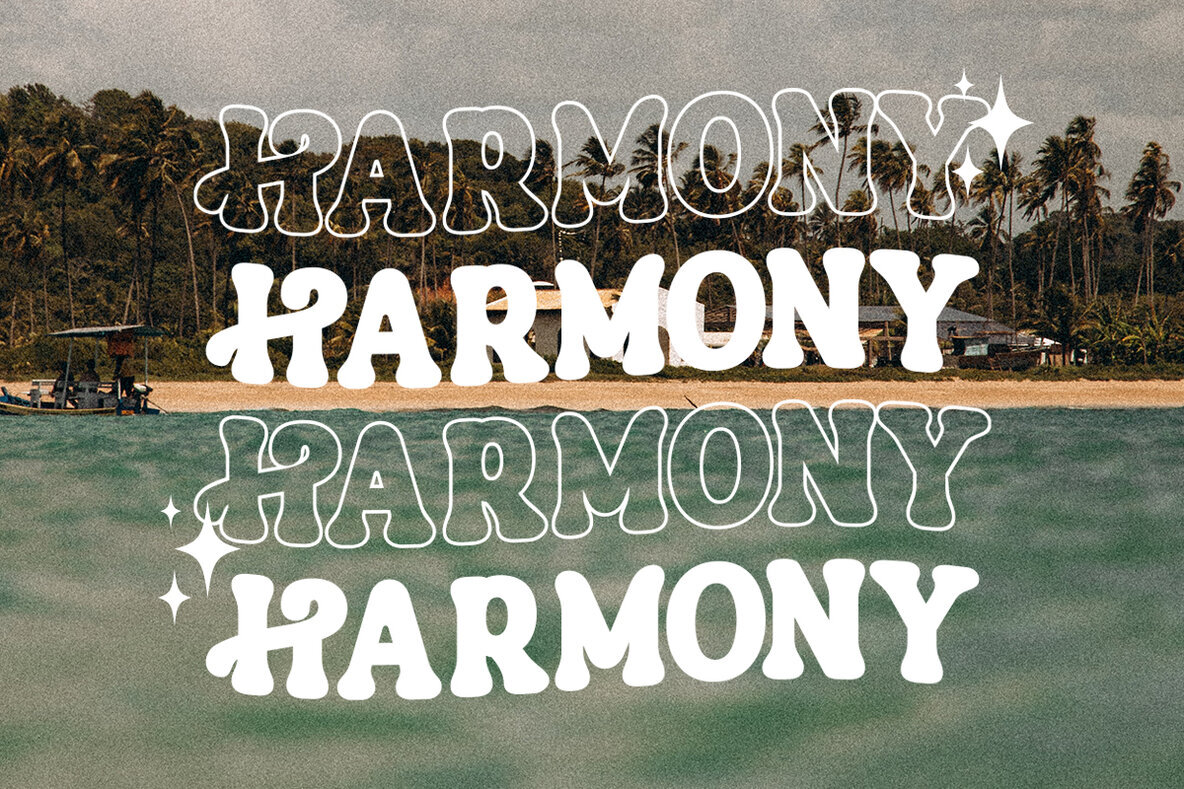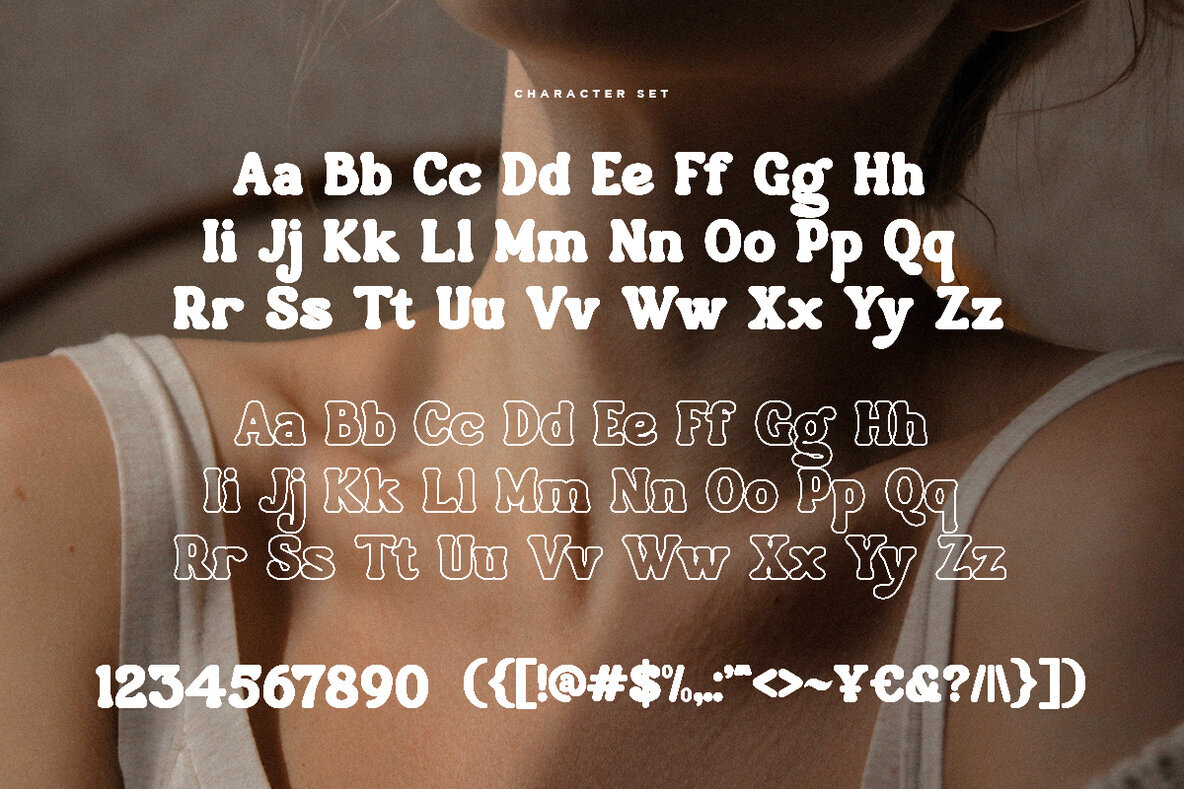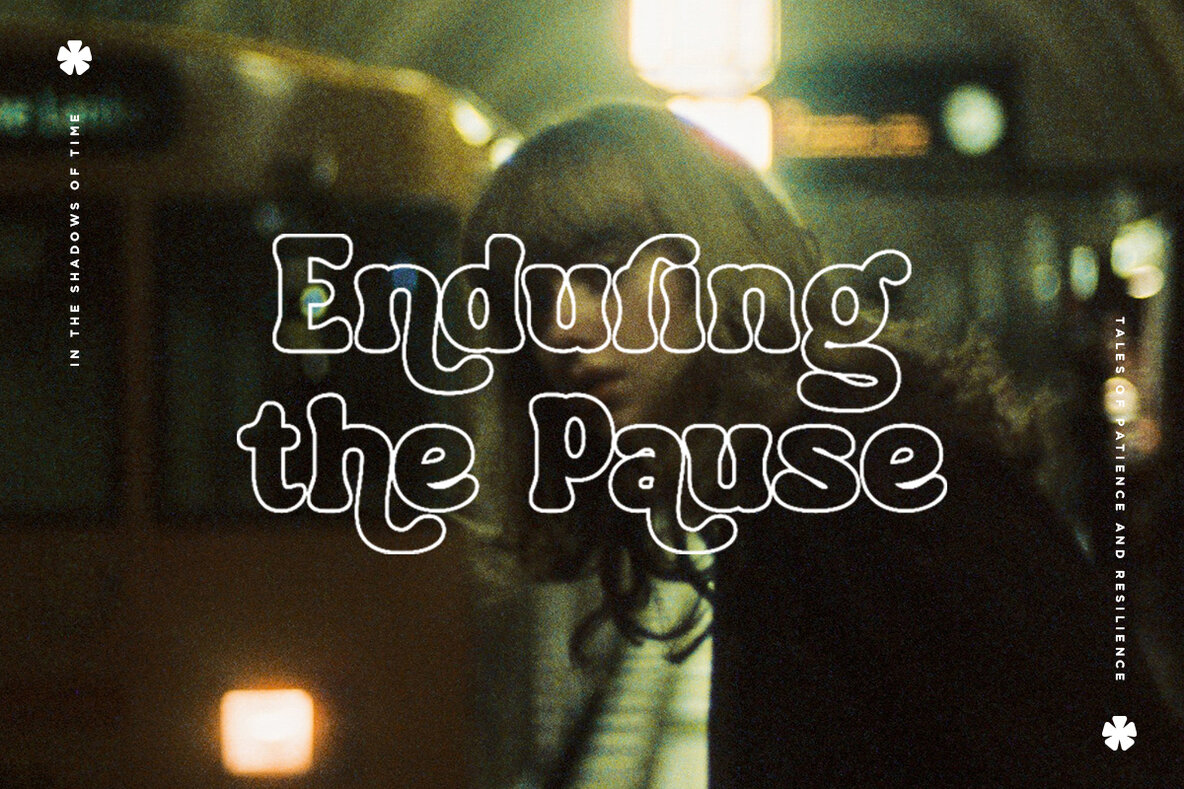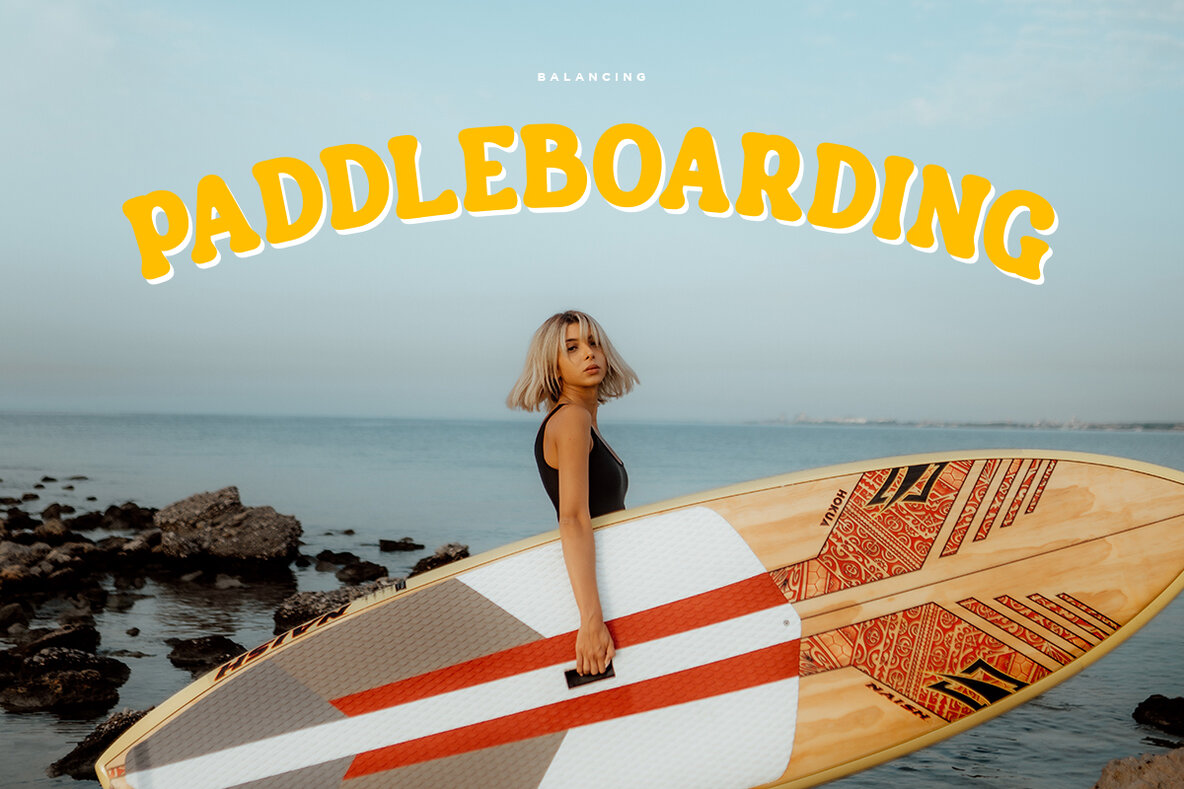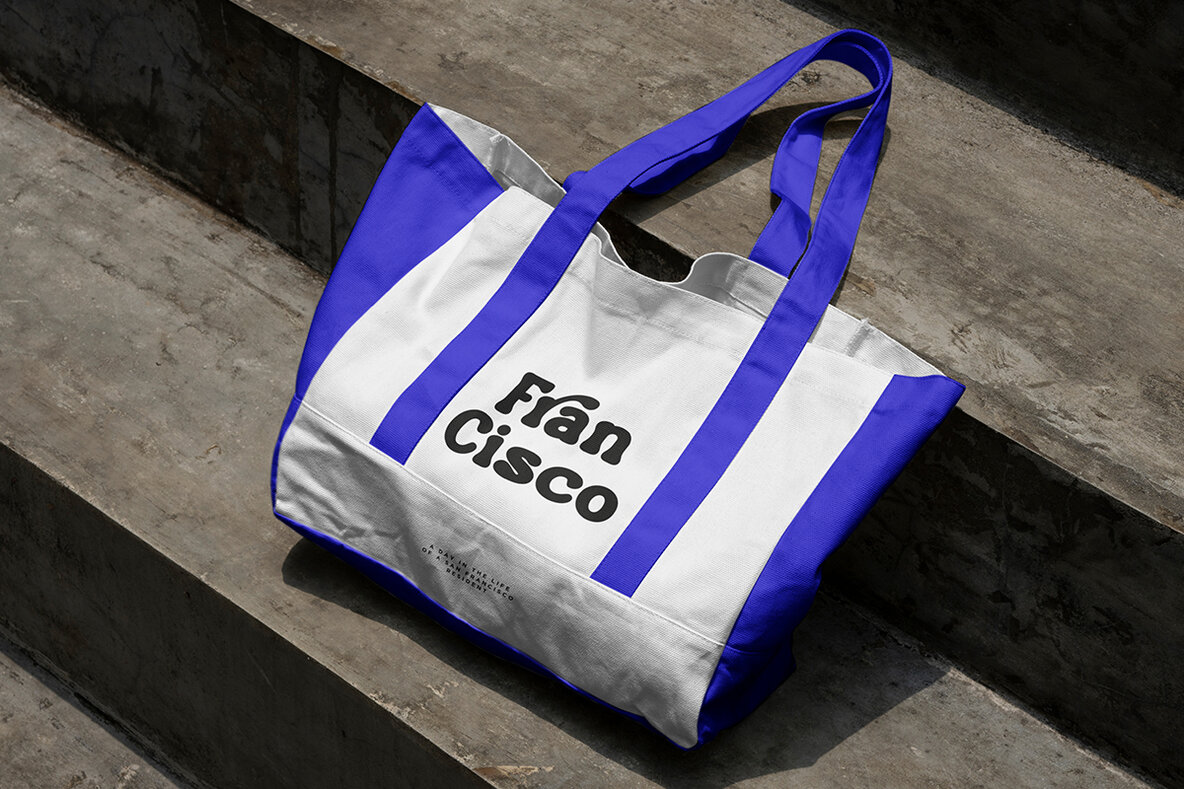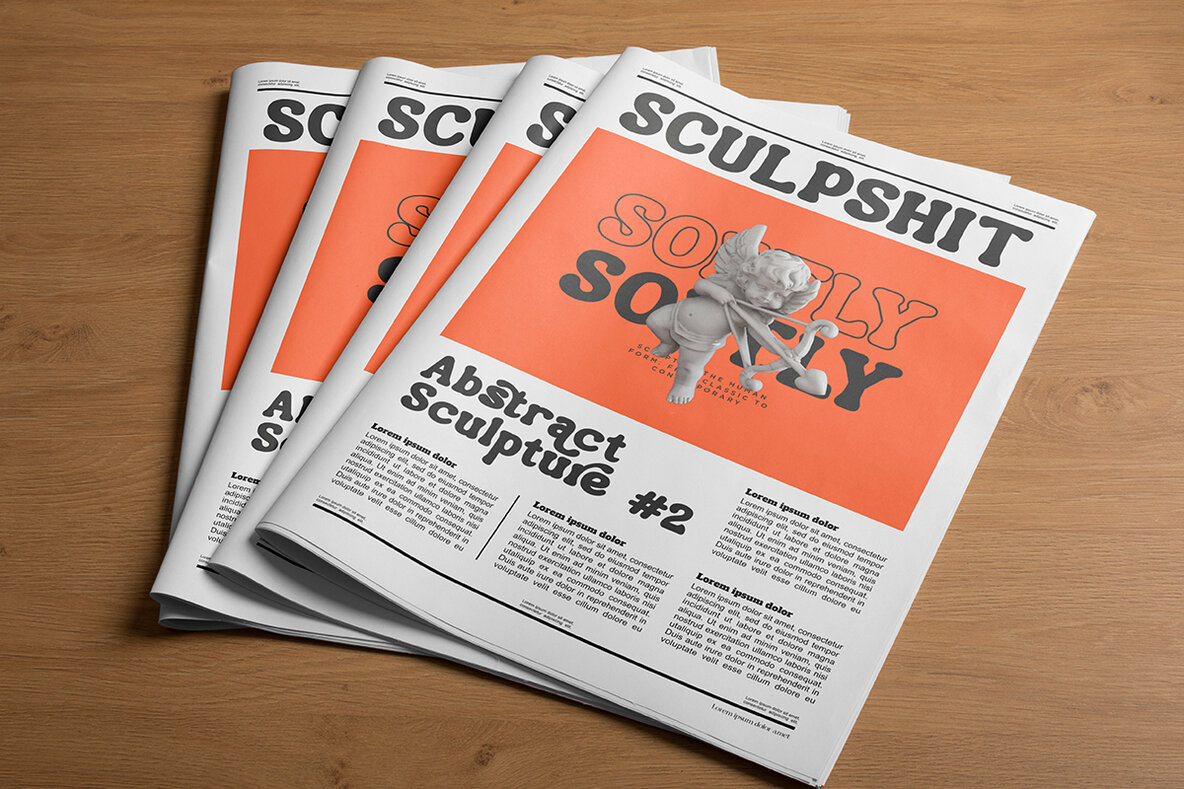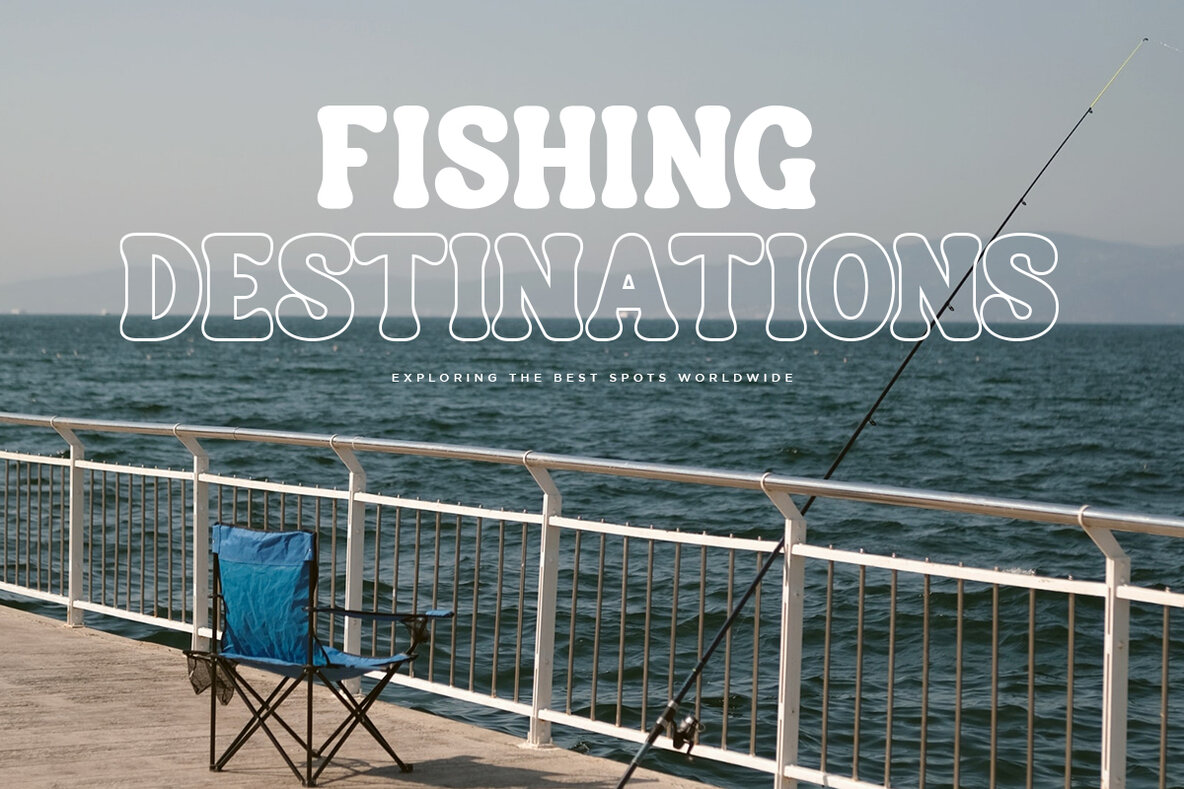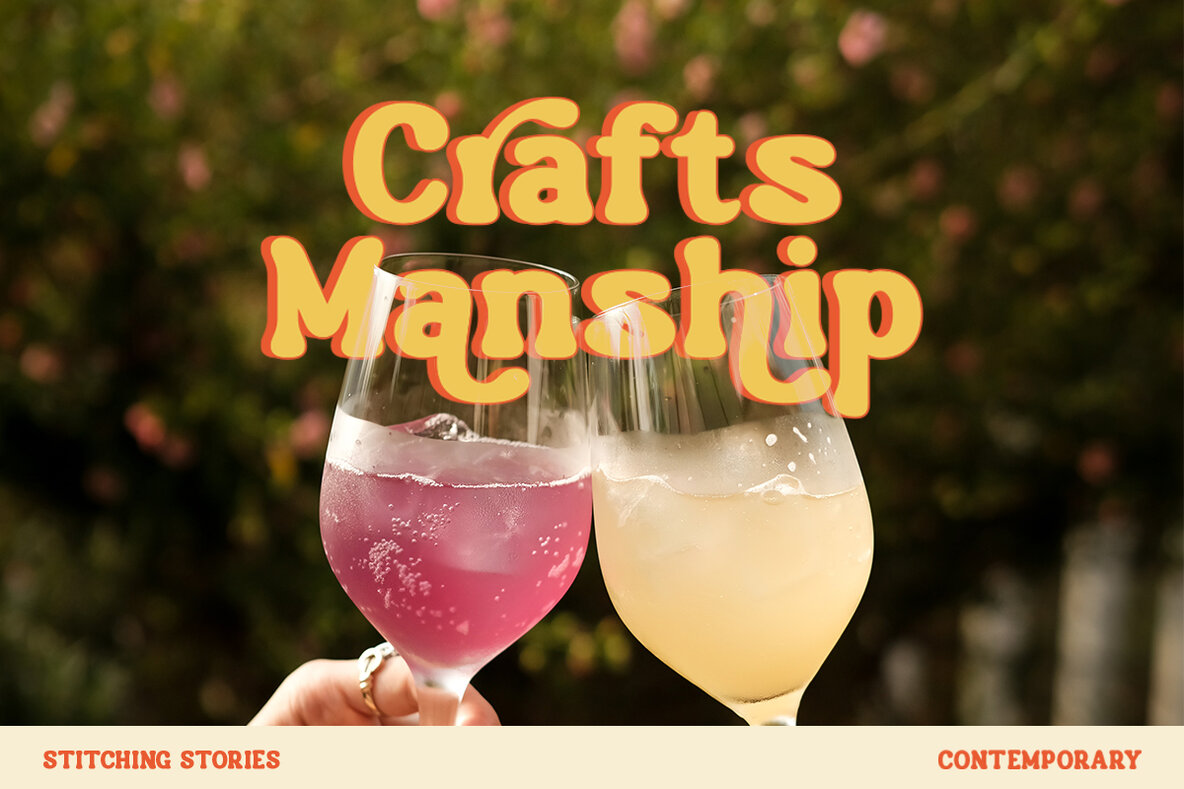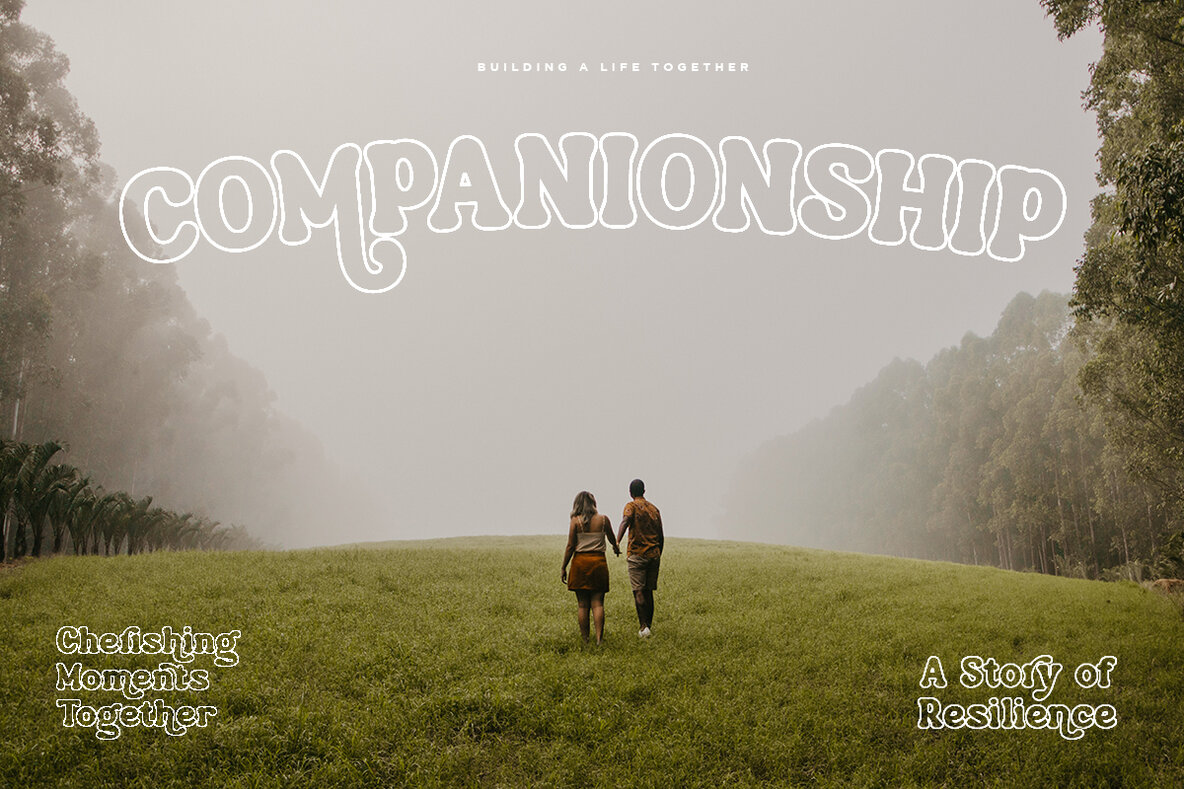
Janora Font
Janora is a retro display serif font that combines a classic charm with bold character. Inspired by retro styles, this font adds an elegant touch to any project, evoking a sense of the past. Each letter is meticulously crafted with careful attention to detail and proportion, ensuring a visually appealing and unique appearance. Janora is ideal for projects requiring a vintage feel, including posters, logos, packaging, and promotional materials. Its design captures a nostalgic and sophisticated atmosphere, adding a special touch to your creations and captivating viewers with its retro allure. We value your feedback. If you encounter any issues or have suggestions for improvement, please feel free to contact us. Thank you for choosing Janora, and have a wonderful day!Janora: Retro Display Serif with Classic Charm
Perfect for Vintage Projects